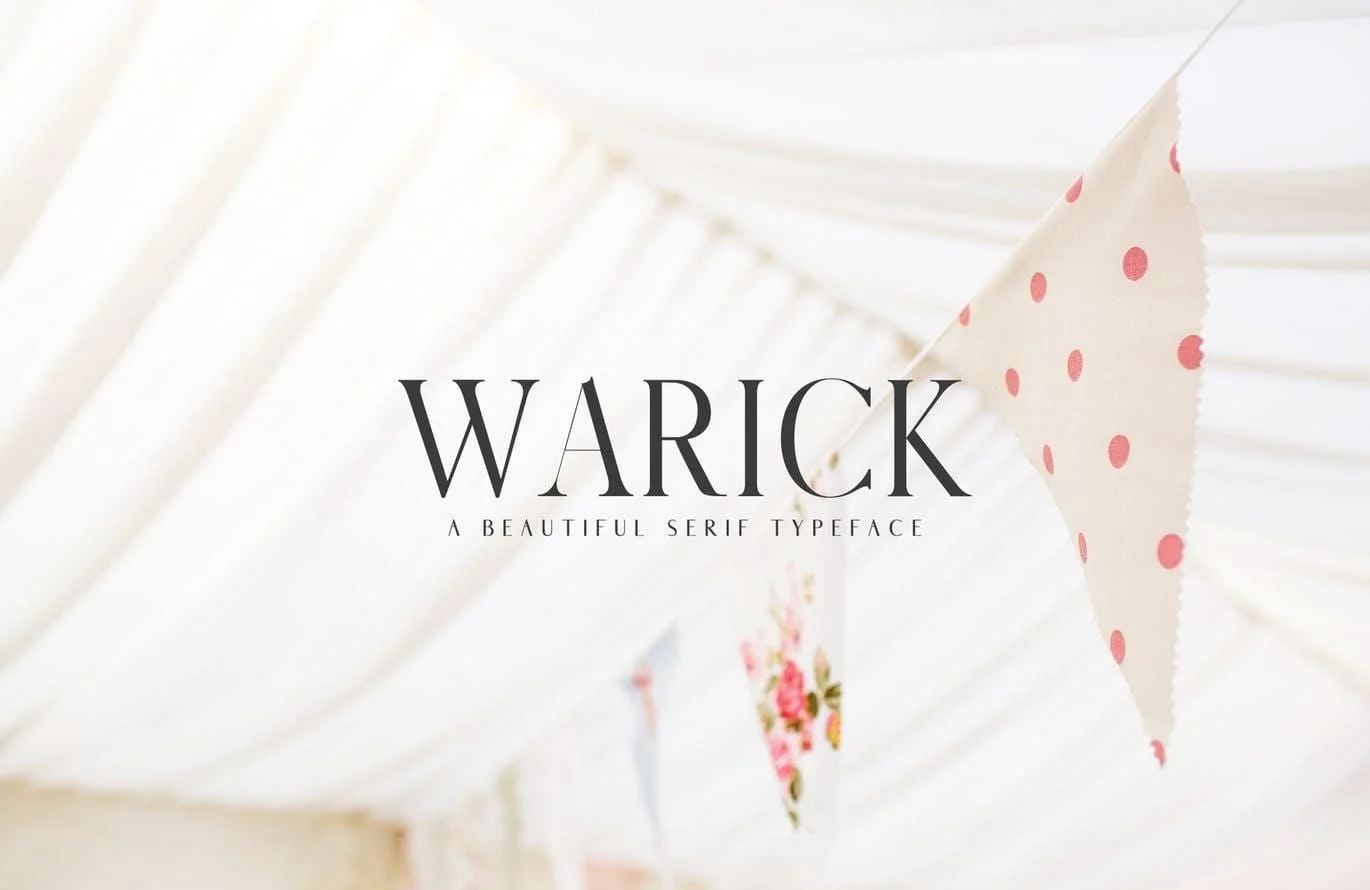
Warick Serif Font is perfect for literary publishing, editorial magazine layouts, traditional book typography, classic brand identities, professional business materials, law firm branding, financial institution communications, historical documentation, prestigious corporate presentations, and distinguished designs that require timeless serif elegance and authoritative typographic presence.
This font is exciting because it masterfully combines classical serif tradition with refined contemporary sensibility, creating letterforms that exude intelligence, credibility, and enduring sophistication. The balanced proportions and elegant details demonstrate exceptional typographic craftsmanship, making it ideal for projects that need to convey established authority, intellectual depth, and the distinguished presence of institutions built on tradition and trust.
The Warick Serif Font family typically includes multiple weights, roman and italic styles, uppercase and lowercase characters, numerals, comprehensive punctuation, ligatures, and professional typographic features that support sophisticated text composition for premium publishing and corporate communications.
Whether you're designing for established institutions, creating editorial content for prestigious publications, or developing brand identities for professional services that value tradition and credibility, Warick Serif Font Free Download provides the typographic foundation for authoritative communication. Its distinguished character and classical elegance make every project feel more credible and professionally executed, ensuring your designs effectively convey wisdom, stability, and the timeless quality that commands respect and establishes lasting trust.